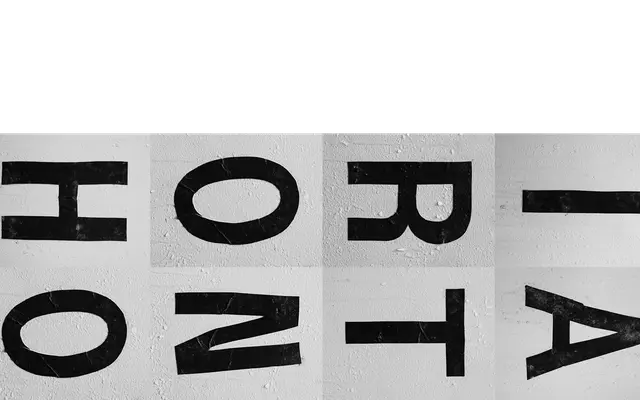
Wet Letters
Source Type · Shannon Ebner · 2022
A photographic typeface built from Shannon Ebner's wet letter alphabet images, released as both a usable font and an artist edition in collaboration with Source Type.
Each glyph is drawn directly from Ebner's photographs of wet letters, giving the typeface a material, indexical quality absent from virtually all digital type. The project originates from the broader STRAY WORLD collaboration with David Reinfurt and has appeared across exhibitions at kaufmann repetto and Altman Siegel between 2019 and 2025. Available in OTF and TTF formats, it sits at the boundary between fine art publication and functional typeface.
A typeface built entirely from photographs of physical wet letter forms, placing it firmly in the experimental/display category with no conventional typographic construction method.